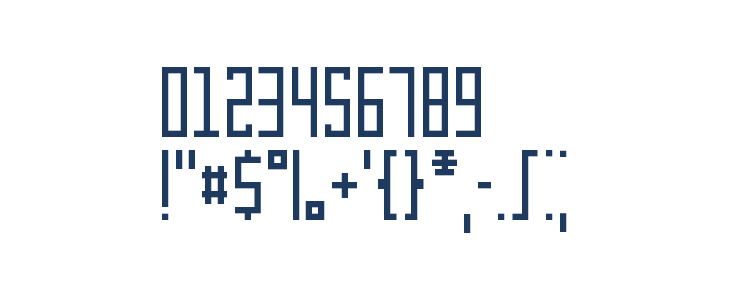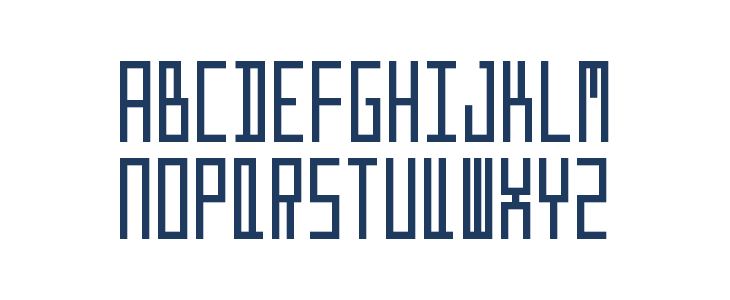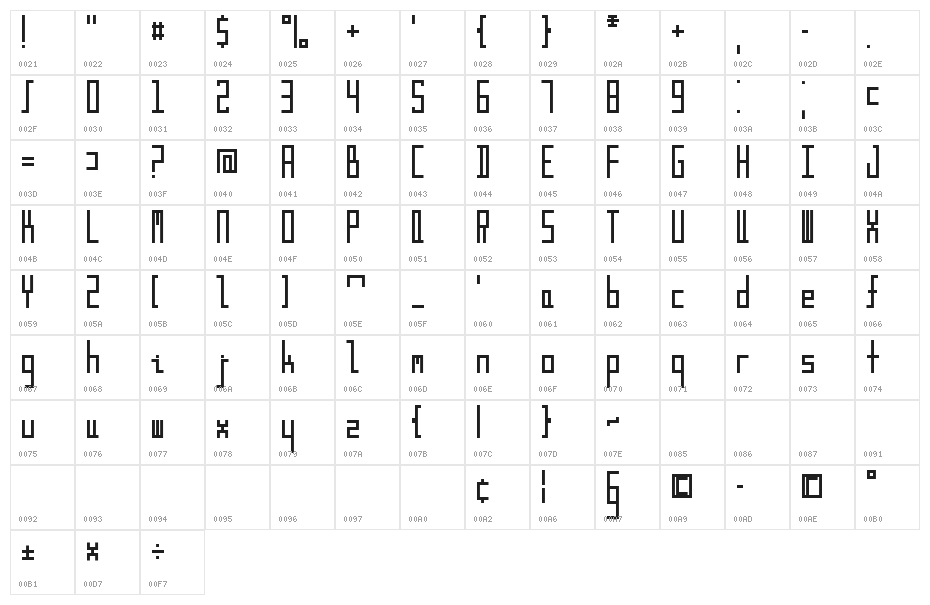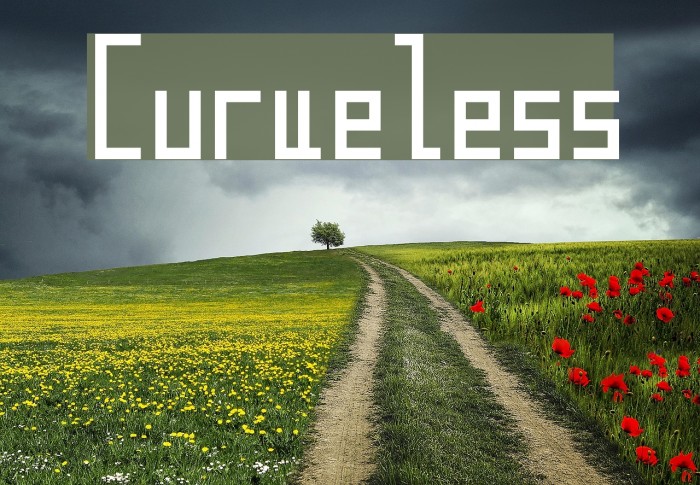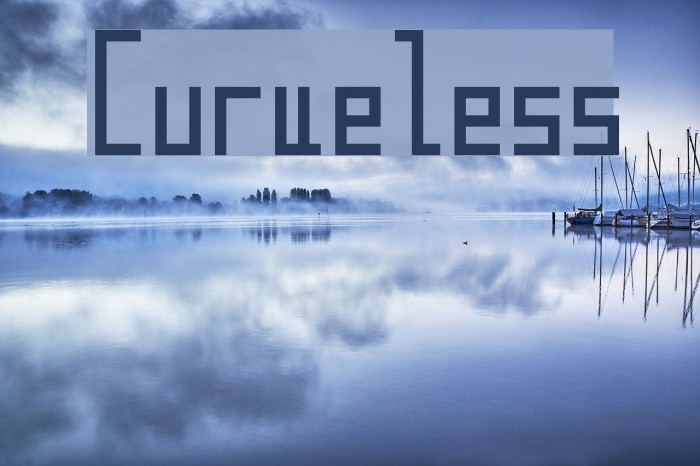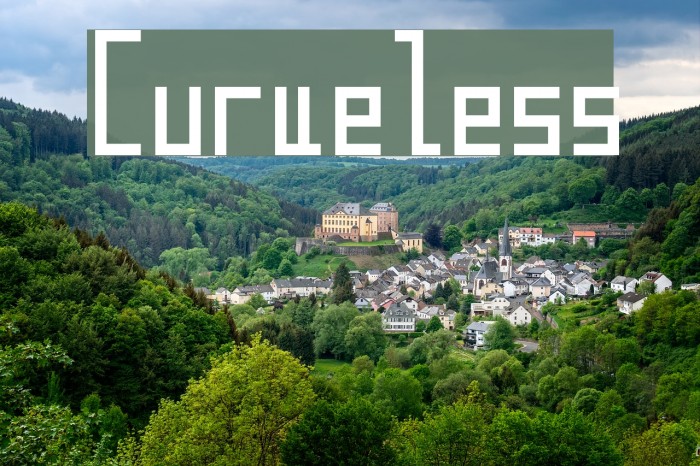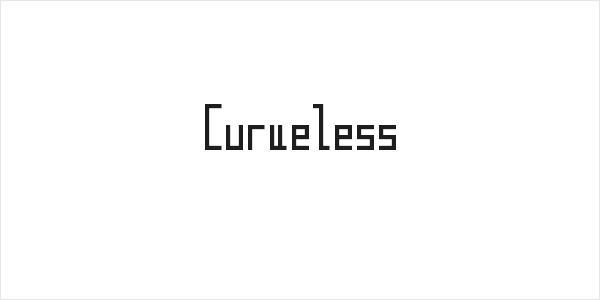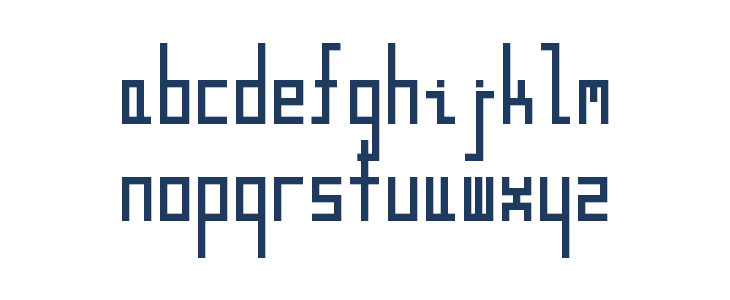
Curveless Font
Curveless Description
This font features a geometric and angular design with no curves, giving it a distinctly modern and digital appearance. Each character is constructed using straight lines and right angles, creating a uniform and grid-like structure. The uppercase and lowercase letters maintain a consistent height, contributing to a monospaced feel. The numerals and special characters follow the same design principles, ensuring a cohesive look across all glyphs. The absence of curves lends a futuristic and technical aesthetic, making it suitable for projects that require a clean and precise typeface.
| Use Case | Logos, digital interfaces, coding environments. |
| Proposed Projects | Ideal for tech-related branding, digital interfaces, coding environments, and futuristic designs. |